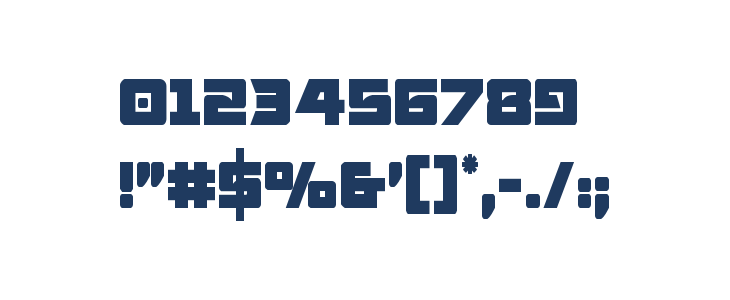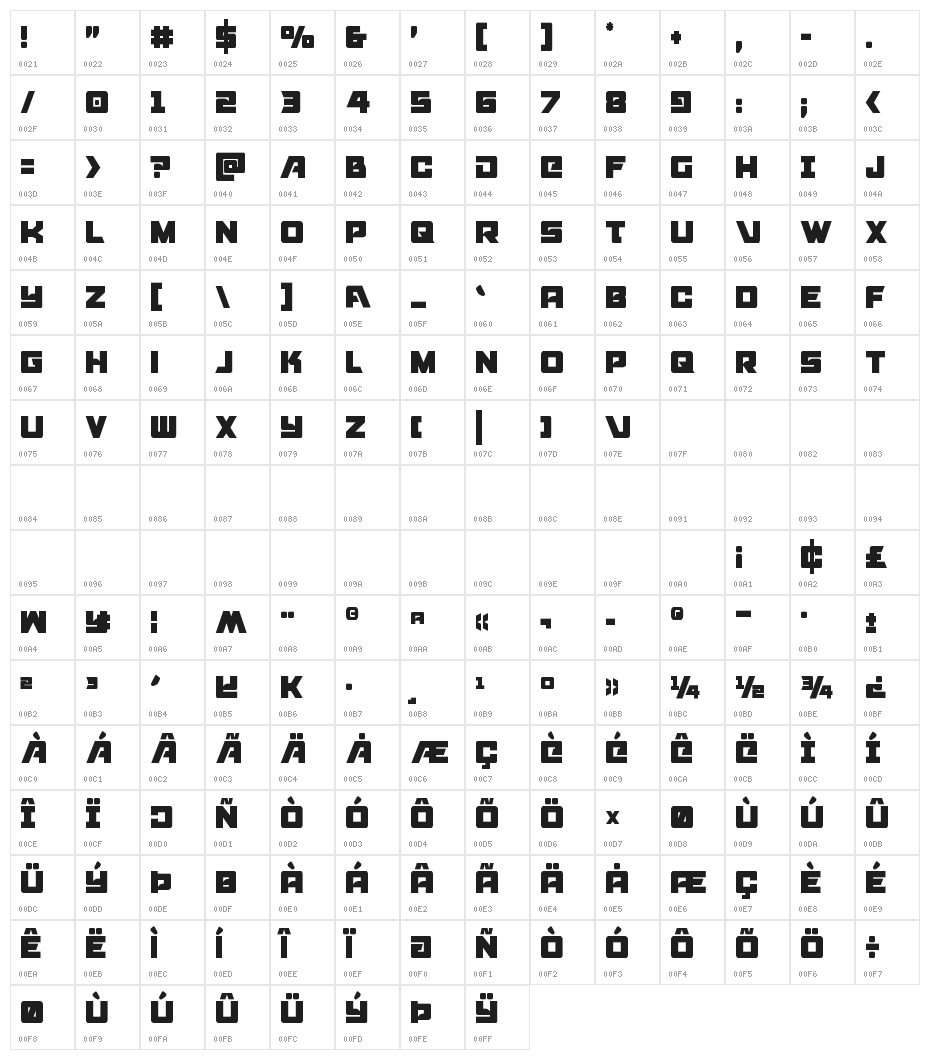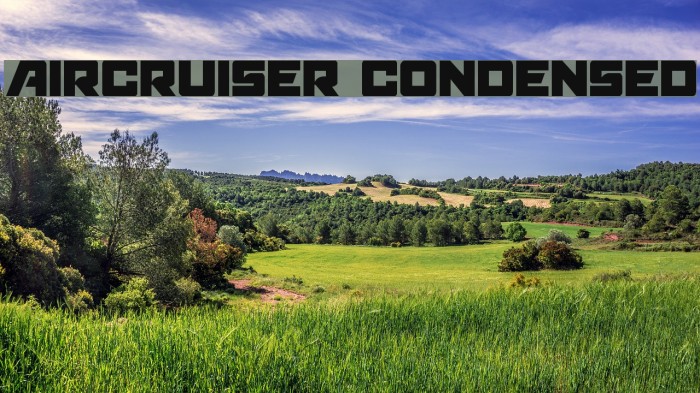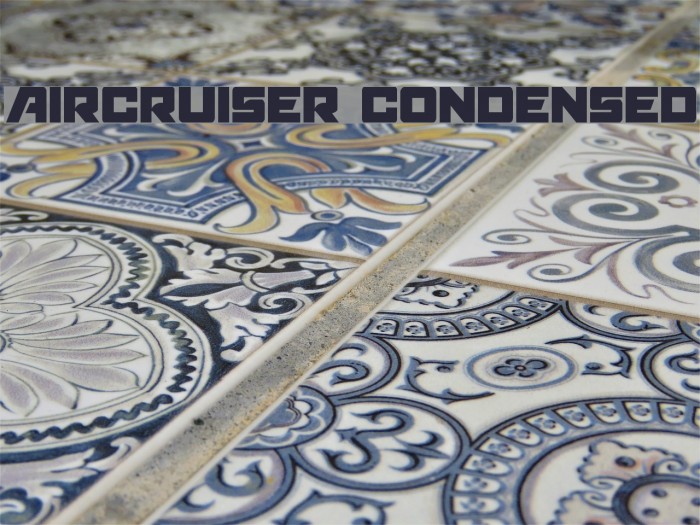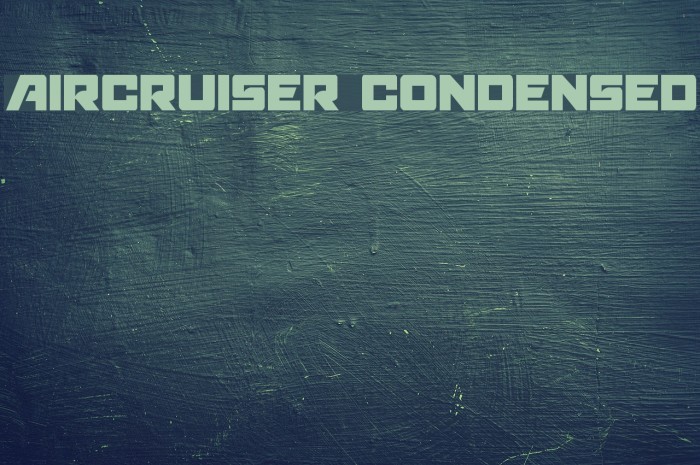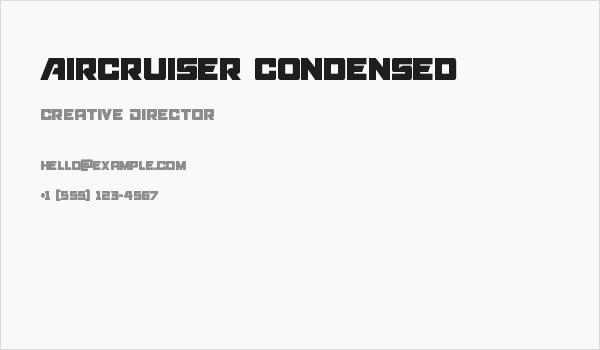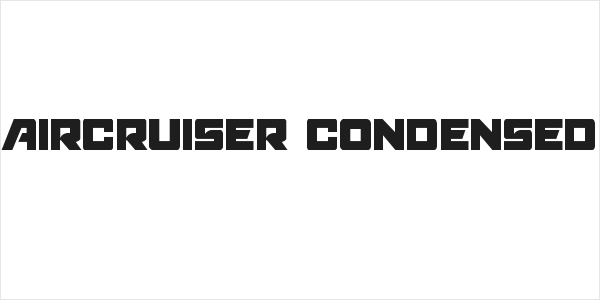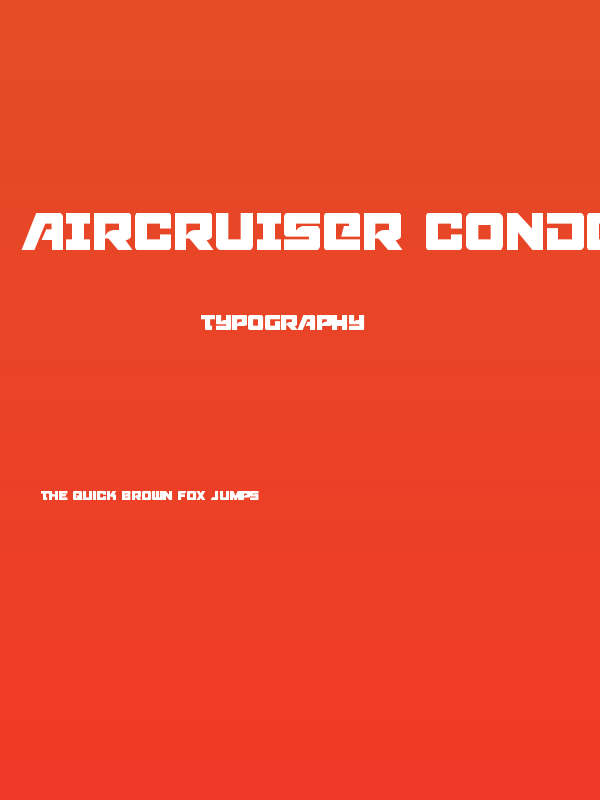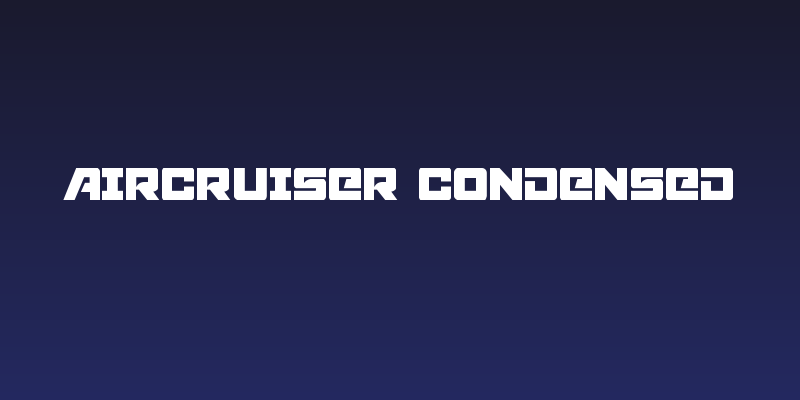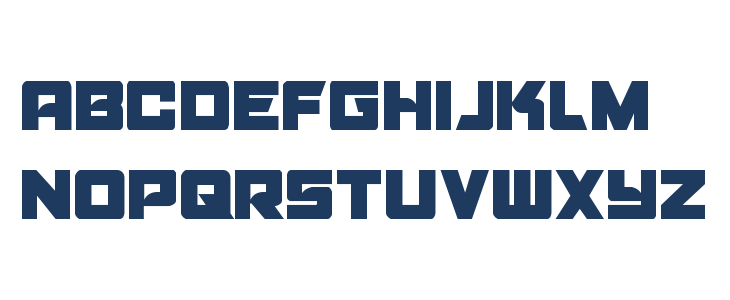
Aircruiser Condensed Font
Aircruiser Condensed Description
This font features a bold and geometric design with a distinctly futuristic and industrial feel. The characters are condensed, giving them a compact appearance that maximizes space efficiency. Each letter is crafted with sharp angles and clean lines, creating a sense of precision and modernity. The uniform stroke width across characters contributes to a cohesive and structured look, while the absence of curves emphasizes a mechanical aesthetic. The font's uppercase letters are particularly striking, with a blocky and robust presence that commands attention. Its numeric and special characters maintain the same bold and angular style, ensuring consistency throughout.
| Proposed Projects | Ideal for technology branding, video game titles, futuristic posters, and industrial-themed designs. |